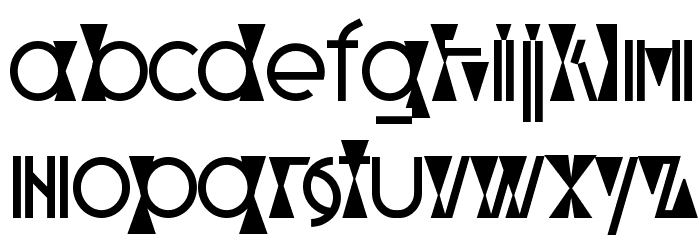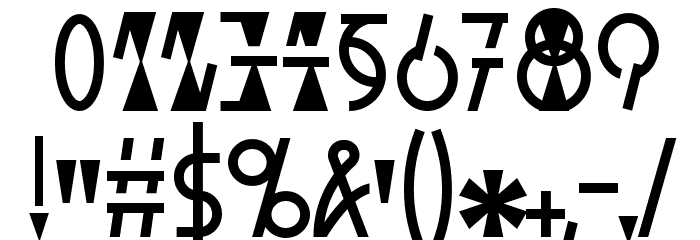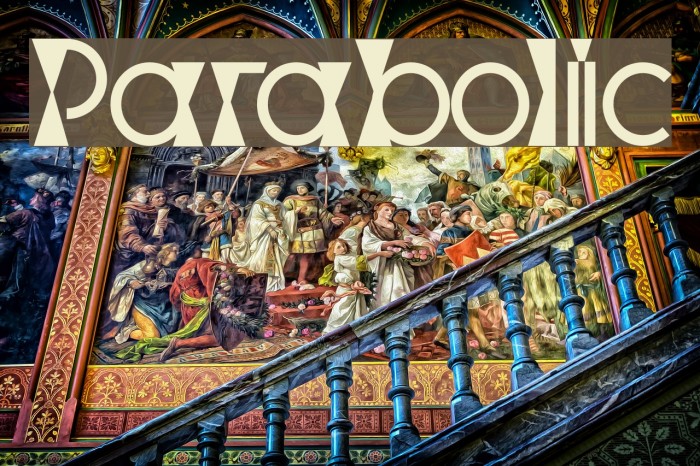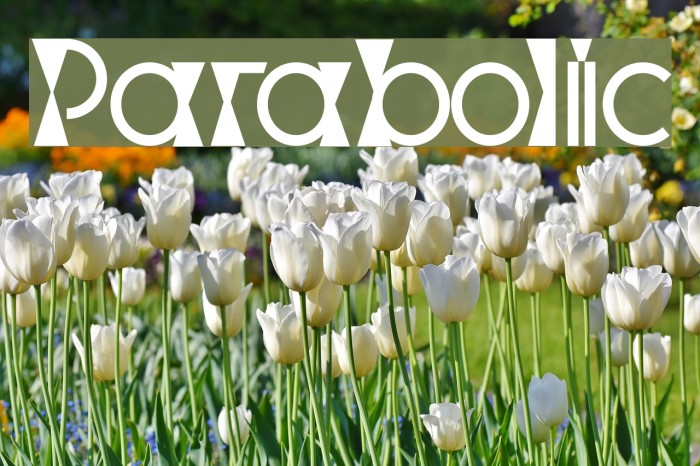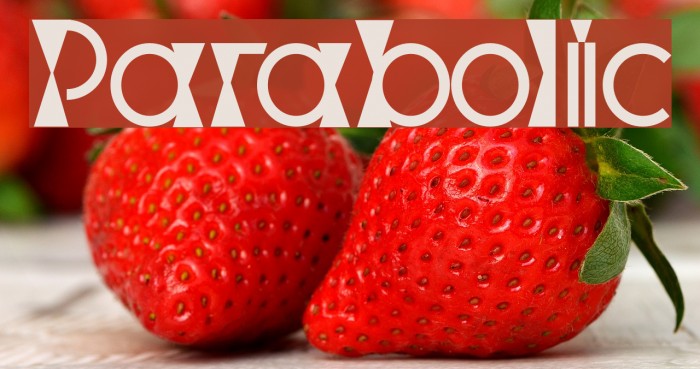
Parabolic Font
This font features a highly geometric and abstract design, characterized by bold, angular shapes and sharp edges. Each character is constructed with a combination of triangles and lines, creating a visually striking and modern appearance. The uppercase and lowercase letters maintain a consistent style, with the lowercase being slightly more compact. Numbers and special characters follow the same geometric theme, ensuring uniformity across all glyphs. The font's unique style makes it stand out, offering a futuristic and avant-garde aesthetic that is both eye-catching and distinctive.
A bold, geometric font with angular shapes and a modern, abstract style.
- Proposed Projects: Ideal for futuristic branding, modern art posters, sci-fi book covers, and innovative tech company logos.